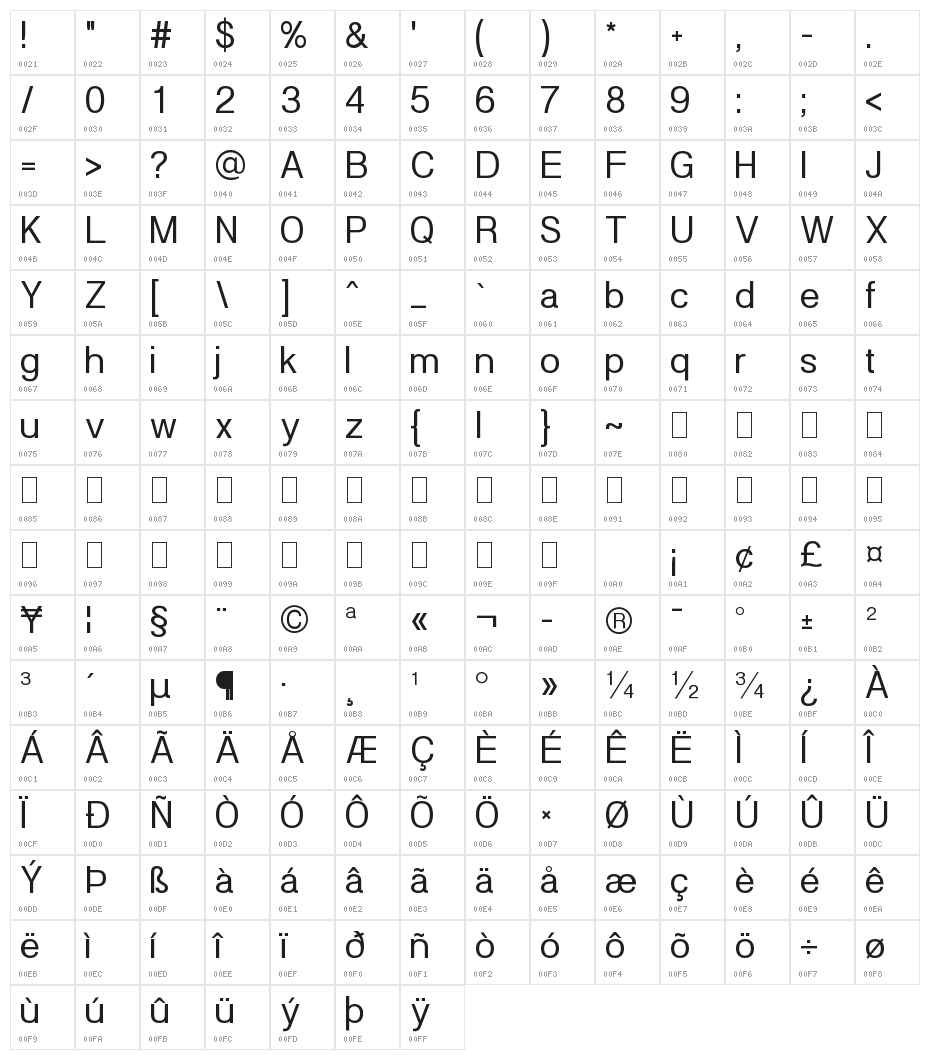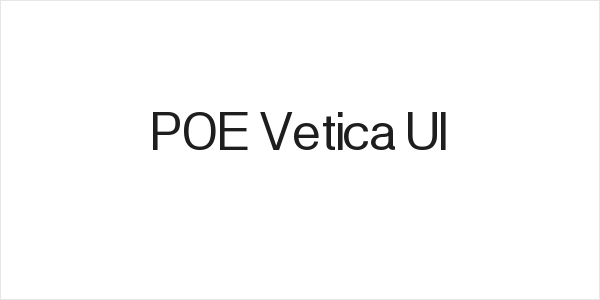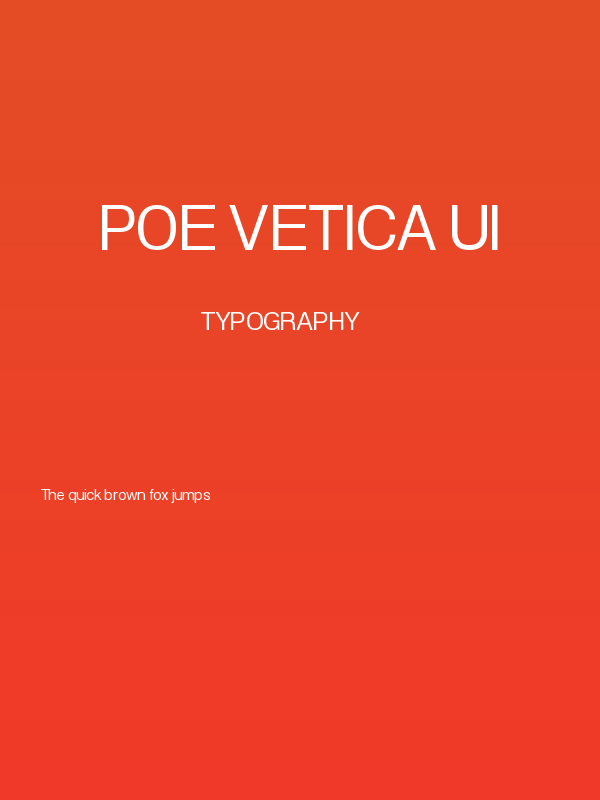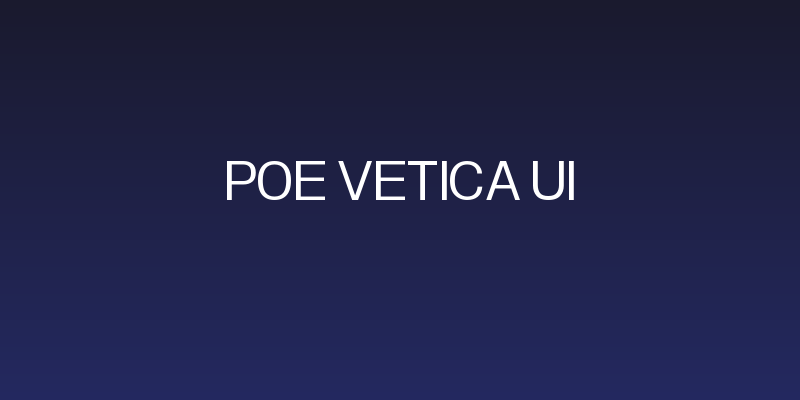
POE Vetica UI Font
POE Vetica UI Description
This font features a clean and modern sans-serif design, characterized by its uniform stroke width and geometric shapes. The uppercase letters are bold and assertive, while the lowercase letters maintain a consistent and harmonious appearance. The numerals are clear and easy to read, making them suitable for both digital and print applications. Special characters are well-defined, adding versatility to the font's usage. The overall design is minimalistic, emphasizing legibility and functionality.
| Proposed Projects | Ideal for user interfaces, websites, corporate branding, and digital content. |